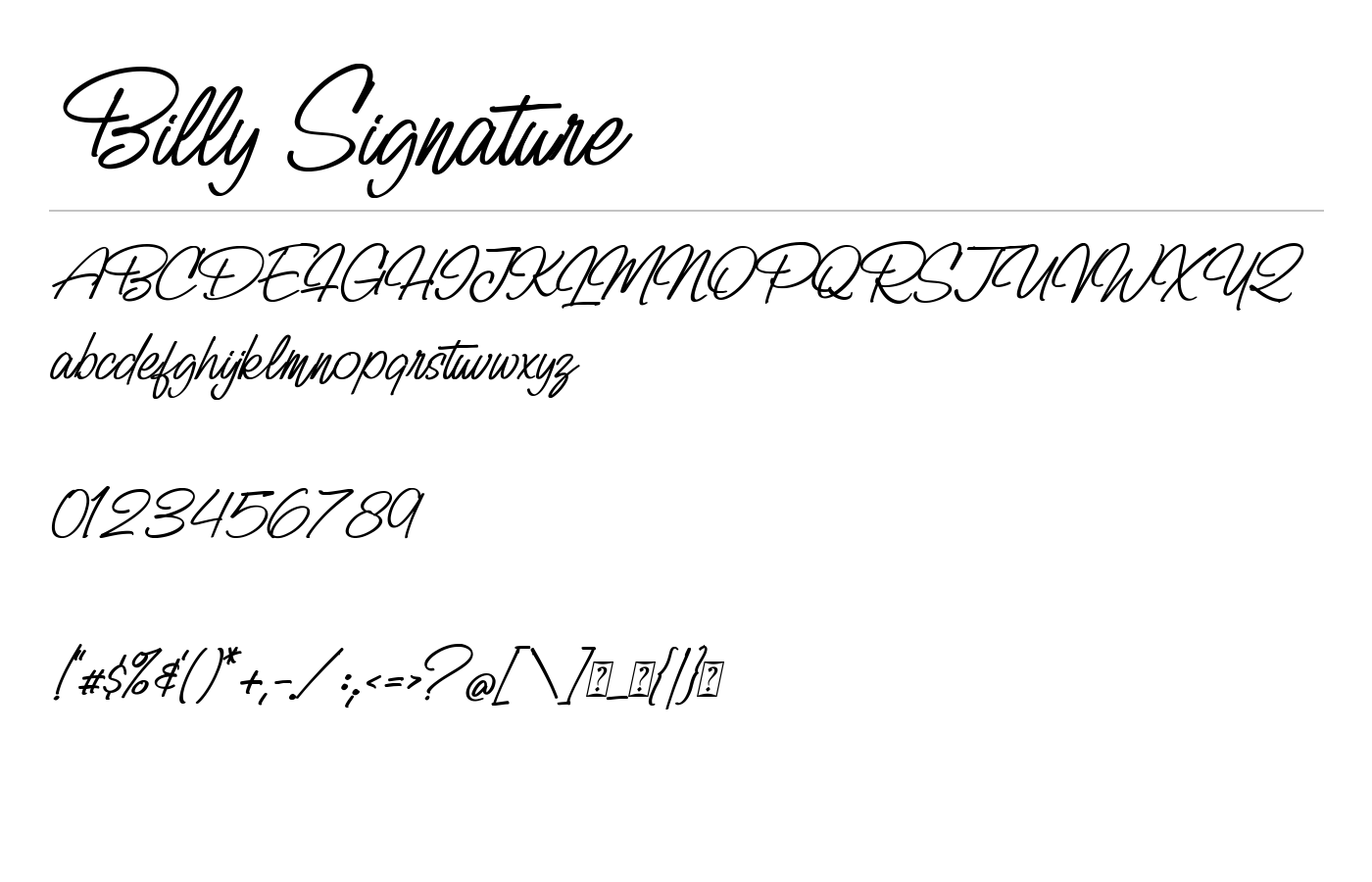
Billy Signature is an elegant script font that mimics natural, fluid handwriting with a delicate, airy feel. Its slender strokes and smooth connections make it ideal for personal branding, invitations, and stylish logos where a sophisticated yet approachable look is desired. This font works best in projects that need a touch of charm and authenticity, like luxury packaging or creative editorial layouts.
Billy Signature Font
About Billy Signature Font
| Font family | Billy Signature Font |
| Designer | Omotu Studio 2020 |